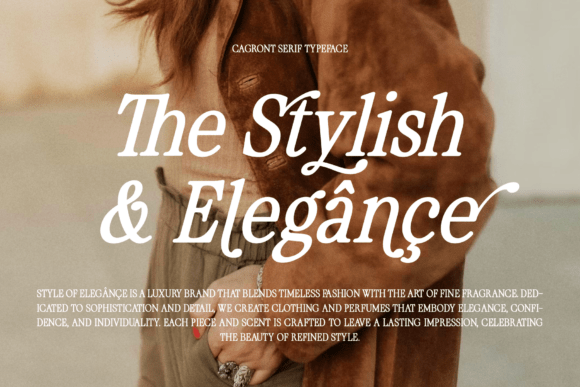
Cagront Serif Font: Elevate Your Brand with Elegance and Sophistication
In the world of typography, a well-crafted font can make all the difference in elevating a brand’s visual identity. Introducing Cagront Serif, a sophisticated serif typeface that exudes luxury and refinement. With its elegant ligatures and alternates, this premium font is perfect for those seeking to add a touch of elegance and style to their brand’s visual representation.
The Unique Features of Cagront Serif
Cagront Serif boasts a unique combination of ligatures and alternates that set it apart from standard serif fonts. The meticulous craftsmanship that has gone into creating this typeface ensures a premium quality and luxurious feel, making it ideal for high-end brands and businesses. The elegant ligatures and alternates add a level of sophistication to any text, making it perfect for formal applications such as logos, headlines, titles, and more.
Applications of Cagront Serif
Cagront Serif is a versatile font that can be used in a wide range of applications, including:
- Logos: Create a lasting impression with a custom logo that exudes elegance and sophistication.
- Headlines and Titles: Grab attention with bold and refined headlines and titles that showcase your brand’s personality.
- Invitations and Wedding Cards: Add a touch of luxury to your formal invitations and wedding cards with Cagront Serif’s elegant ligatures and alternates.
- Magazines and Books: Elevate your publication’s visual identity with a font that is both refined and easy to read.
- Packaging and Labels: Stand out on store shelves with Cagront Serif’s unique and sophisticated look.
- Fashion and Beauty Branding: Perfect for high-end fashion and beauty brands seeking to convey luxury and elegance.
- Stationery: Create a lasting impression with custom stationery that showcases your brand’s personality.
- Advertising Materials: Add a touch of elegance and style to your advertising materials, including brochures, flyers, and more.
The Benefits of Using Cagront Serif
Using Cagront Serif offers a range of benefits, including:
- Unique and Refined Look: Stand out from the competition with a font that is both elegant and sophisticated.
- Improved Brand Recognition: Create a lasting impression with a custom font that reflects your brand’s personality.
- Versatility: Use Cagront Serif in a wide range of applications, from logos and headlines to packaging and advertising materials.
- Premium Quality: Enjoy a premium quality font that is meticulously crafted to ensure a luxurious feel.
Typography and Brand Identity
Typography plays a crucial role in a brand’s visual identity. The right font can convey a brand’s personality, values, and tone, while also setting it apart from competitors. Cagront Serif is a font that is specifically designed to help brands elevate their visual identity and create a lasting impression.
Designing with Cagront Serif
When designing with Cagront Serif, it’s essential to consider the following tips:
- Use it sparingly: Cagront Serif is a font that is best used sparingly, particularly in formal applications.
- Experiment with ligatures and alternates: Take advantage of Cagront Serif’s unique ligatures and alternates to add a touch of elegance and sophistication to your design.
- Pair it with other fonts: Experiment with pairing Cagront Serif with other fonts to create a unique and refined look.
Cagront Serif is a sophisticated serif typeface that is perfect for brands seeking to elevate their visual identity with elegance and sophistication. With its unique combination of ligatures and alternates, this premium font is ideal for formal applications, including logos, headlines, titles, and more. Whether you’re looking to create a lasting impression with a custom logo or add a touch of luxury to your packaging, Cagront Serif is the perfect choice.
Key Features of Cagront Serif
- Sophisticated serif typeface: Elegant and refined, perfect for formal applications.
- Elegant ligatures and alternates: Add a touch of luxury and sophistication to your design.
- Premium quality: Meticulously crafted to ensure a luxurious feel.
- Versatile: Use in a wide range of applications, from logos and headlines to packaging and advertising materials.